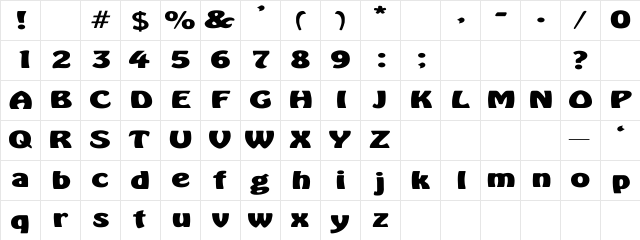
RoundHouseExt Regular
Design Context for RoundHouseExt
RoundHouseExt softens its letterforms with rounded terminals, giving it an approachable, friendly quality that works well in consumer-facing and digital contexts.
Font Pairing: Pairs well with a rounded or humanist sans for body copy, maintaining the friendly tone without relying on RoundHouseExt to carry extended reading.
Pro Tip: Use RoundHouseExt for UI elements, app interfaces, and anywhere a friendly, approachable tone needs to be maintained without sacrificing clarity.